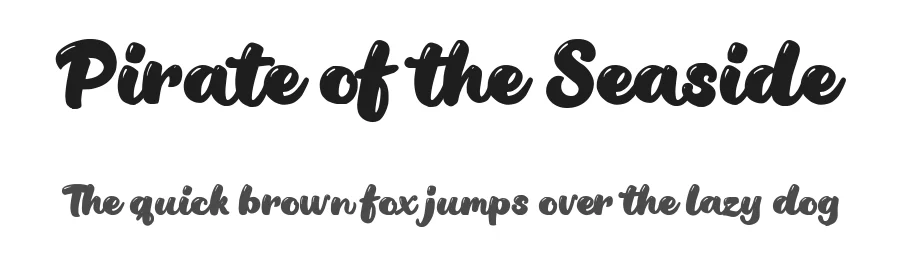
About Musician Font
Musician is a script & handwritten font designed by Mocha Frappuccino. It includes 96 glyphs, a regular weight, OTF (CFF) format, and 197 languages. Musician is free to download; check the license details on this page before commercial use. Script & handwritten fonts like Musician work best for wedding invitations, greeting cards, signatures, and elegant branding.
Musician ships with 1 OpenType feature you can switch on in apps that support them (Illustrator, InDesign, Affinity, Figma, CSS font-feature-settings).
Musician supports 197 languages.
Musician Font is a script font that shines as a display or heading face. Pair it with a clean sans-serif or serif font for body text β the contrast creates a clear hierarchy while the two styles stay balanced and easy to read.